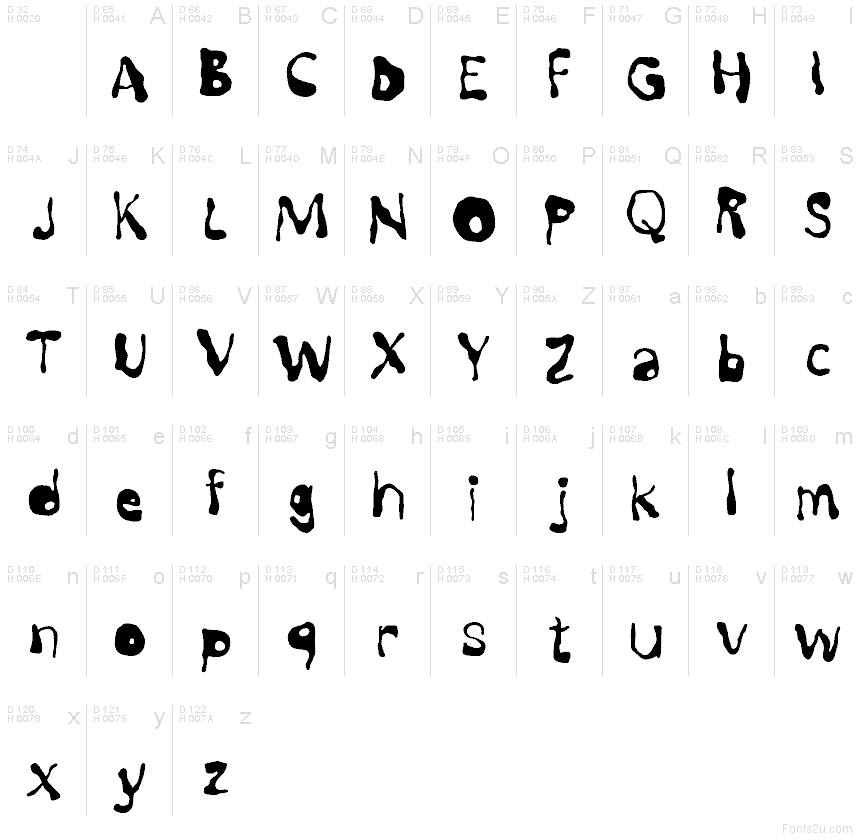
CS Darcy Regular Demo
CS Darcy font by Craft Supply Co. is a distorted display font with irregular yet organic forms. Animated, symmetrical, and bold; its fun letterforms appear friendly to the reader or viewer at first glance. A handcrafted feel, whimsical mood, and inflated look are some of the characteristics personalities of this font.
Scripts for films, animated series titles introductions or intros, nightclub flyers or posters designs can all benefit from CS Darcy. Other ideas include game interfaces (screen titles), book covers, apps, websites main headlines mockups as well as toy packaging.